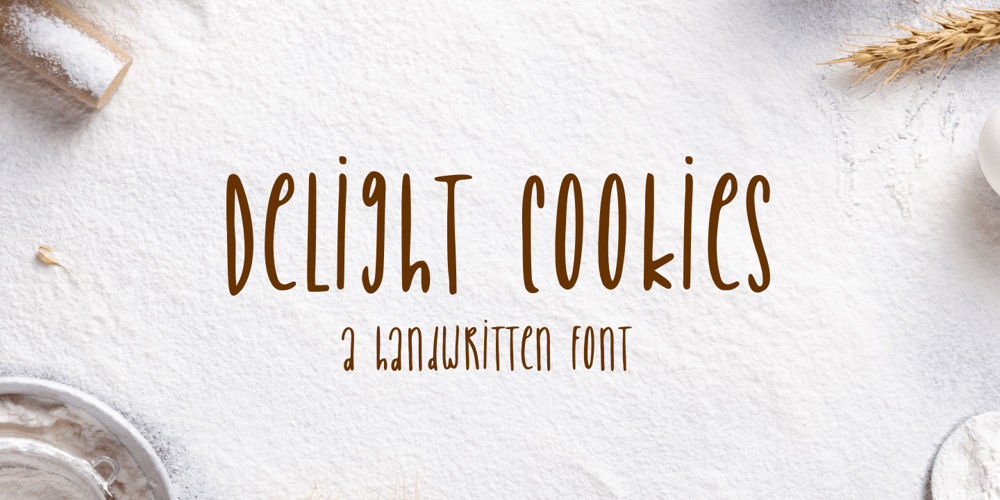
Delight Cookies Font Family was designed by Muhamad Yusron Billah and published by Sronstudio. Delight Cookies contains 1 styles and family package options. Delight Cookies is a handwritten font, this font Is perfect for logo, social media posts, advertisements, product packaging, product designs, label, photography, watermark, special events or anything.Delight Cookies comes with uppercase and lowercase letters, multilingual symbols, numerals, punctuation.